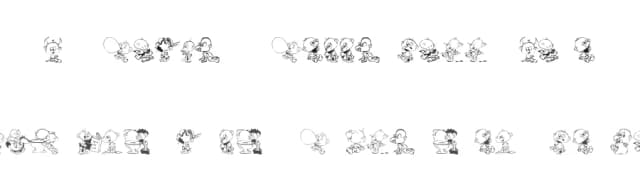
About DT No Mickey D Font
DT No Mickey D is a dingbat font designed by Dantingler. It includes 257 glyphs, a medium weight, TTF (TrueType) format, and 214 languages. DT No Mickey D is free to download; check the license details on this page before commercial use. Dingbat fonts like DT No Mickey D work best for icons, ornaments, bullet points, and decorative accents.
DT No Mickey D Font is a versatile dingbats font that works for both headings and body text. Pair it with a contrasting sans-serif or serif font to add visual interest and a clear distinction between titles and body copy.
DT No Mickey D Font
by Dantingler
DT No Mickey D Font is a dingbats typeface by Dantingler, ideal for logos, invitations, branding, and creative projects.